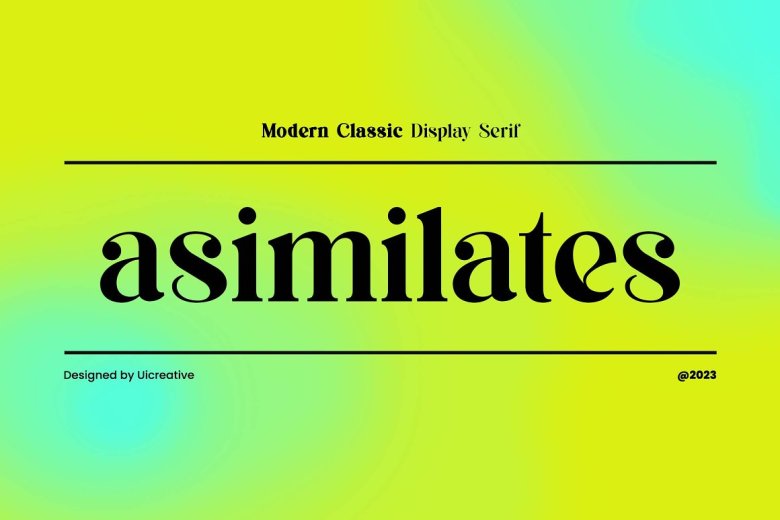
Asimilates Font
Asimilates is a contemporary classical display serif font designed and developed by UICreative. This font can be applied in many projects such as logo design, stationery design, signature wedding invitations, typography quote magazines or book covers headers on websites as well as clothing branding packaging designs and fashion-related editorial designs which display both feminine and masculine characteristics.
Asimilates Serif Font